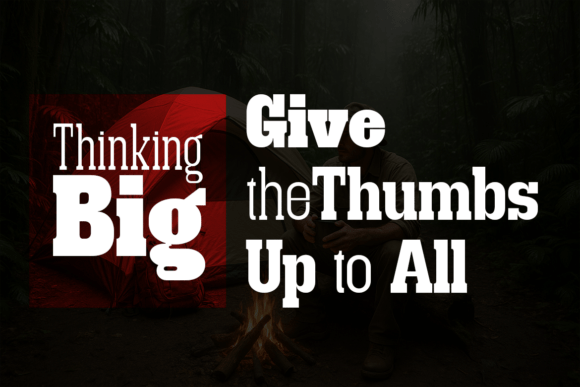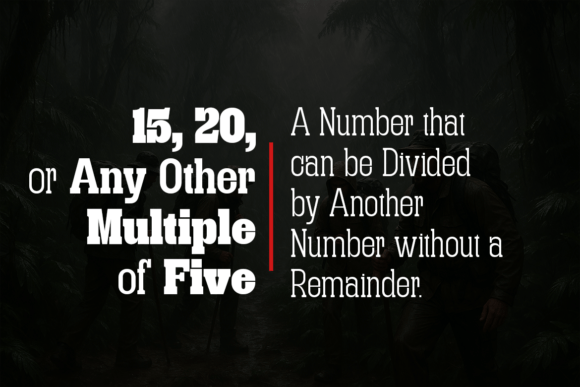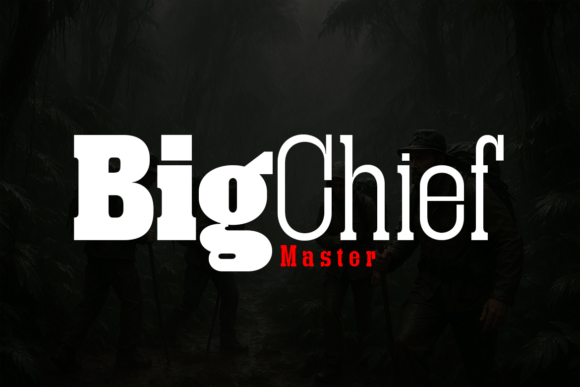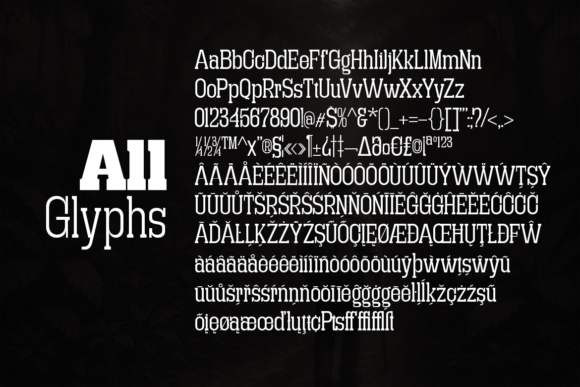
GetUp Regular Font: The Ultimate Typographic Solution for Designers
In the world of typography, finding the perfect font can be a daunting task, especially for designers and crafters who are looking for a versatile and professional workhorse to elevate their creative projects. This is where the GetUp Regular Font comes in – a game-changing typeface that offers a perfect blend of modern slab serif geometry and bold visual personality. In this article, we’ll dive into the features, benefits, and uses of the GetUp Regular Font, and explore why it’s a must-have for designers seeking a reliable and high-quality typographic solution.
Introducing GetUp – Normal / Regular Edition Font
The GetUp font family is a comprehensive typography system that consists of 10 carefully tuned weights, ranging from Thin to Extra Black. At the heart of this family lies the GetUp Normal or Regular font, which represents the core identity of the family. This foundational font serves as the ideal anchor for the entire collection, offering a standard horizontal proportion that balances the towering verticality of the condensed versions with the grounded stability of the expanded ones.
Key Features of GetUp Regular Font
- Signature blocky, slab-style serifs: The GetUp Regular font features distinctive slab-style serifs that provide a sense of established authority and timeless confidence, making it perfect for designers seeking a professional and reliable typographic solution.
- Maximum readability: The GetUp Regular font is engineered for maximum readability across all weights, from the whisper-thin lines of the Extra Light to the heavy, commanding presence of the Extra Black.
- 10 carefully tuned weights: The GetUp font family offers 10 weights, allowing designers to choose the perfect weight to suit their design needs, from Thin to Extra Black.
- Versatile and adaptable: The GetUp Regular font is designed to be versatile and adaptable, making it suitable for a wide range of design applications, from branding and advertising to digital and print media.
Benefits of Using GetUp Regular Font
The GetUp Regular font offers numerous benefits for designers and crafters, including:
- Established authority and credibility: The GetUp Regular font’s signature slab-style serifs convey a sense of established authority and credibility, making it perfect for brands seeking to establish a strong visual identity.
- Improved readability: The font’s careful design ensures maximum readability across all weights, making it ideal for body text, headings, and titles.
- Flexibility and versatility: The GetUp font family’s range of weights and styles offers designers the flexibility to experiment with different typographic approaches, from elegant and refined to bold and attention-grabbing.
- Professional and reliable: The GetUp Regular font is a professional and reliable typographic solution that can be used in a wide range of design applications, from corporate branding to digital marketing.
Use Cases for GetUp Regular Font
The GetUp Regular font is suitable for a wide range of design applications, including:
- Branding and identity: The GetUp Regular font is perfect for brands seeking to establish a strong visual identity and convey a sense of authority and credibility.
- Advertising and marketing: The font’s bold and attention-grabbing weights make it ideal for headlines, titles, and promotional materials.
- Digital and print media: The GetUp Regular font is optimized for use in digital and print media, including websites, magazines, newspapers, and more.
- Packaging and labeling: The font’s clear and readable design makes it suitable for packaging and labeling applications.
| Font Name | Getup Regular Font |
| Author | Artisans |
In conclusion, the GetUp Regular Font is a game-changing typographic solution that offers a perfect blend of modern slab serif geometry and bold visual personality. With its signature blocky serifs, maximum readability, and versatile range of weights, this font is a must-have for designers seeking a professional and reliable workhorse for their creative projects. Whether you’re working on branding, advertising, digital media, or packaging, the GetUp Regular Font is the perfect choice for designers and crafters looking to elevate their typography and take their designs to the next level.